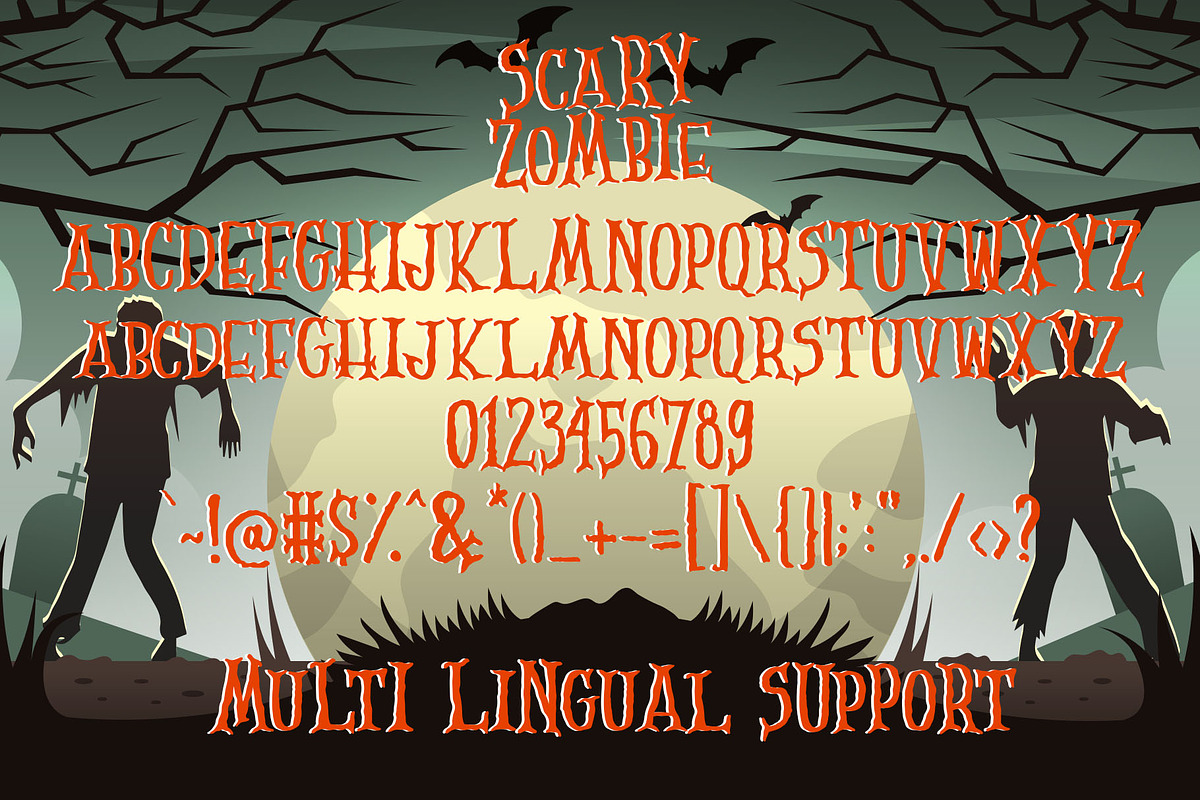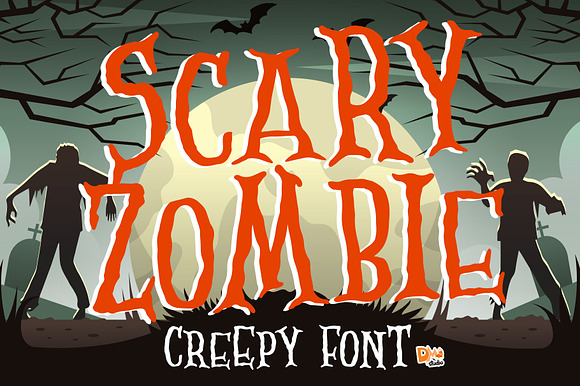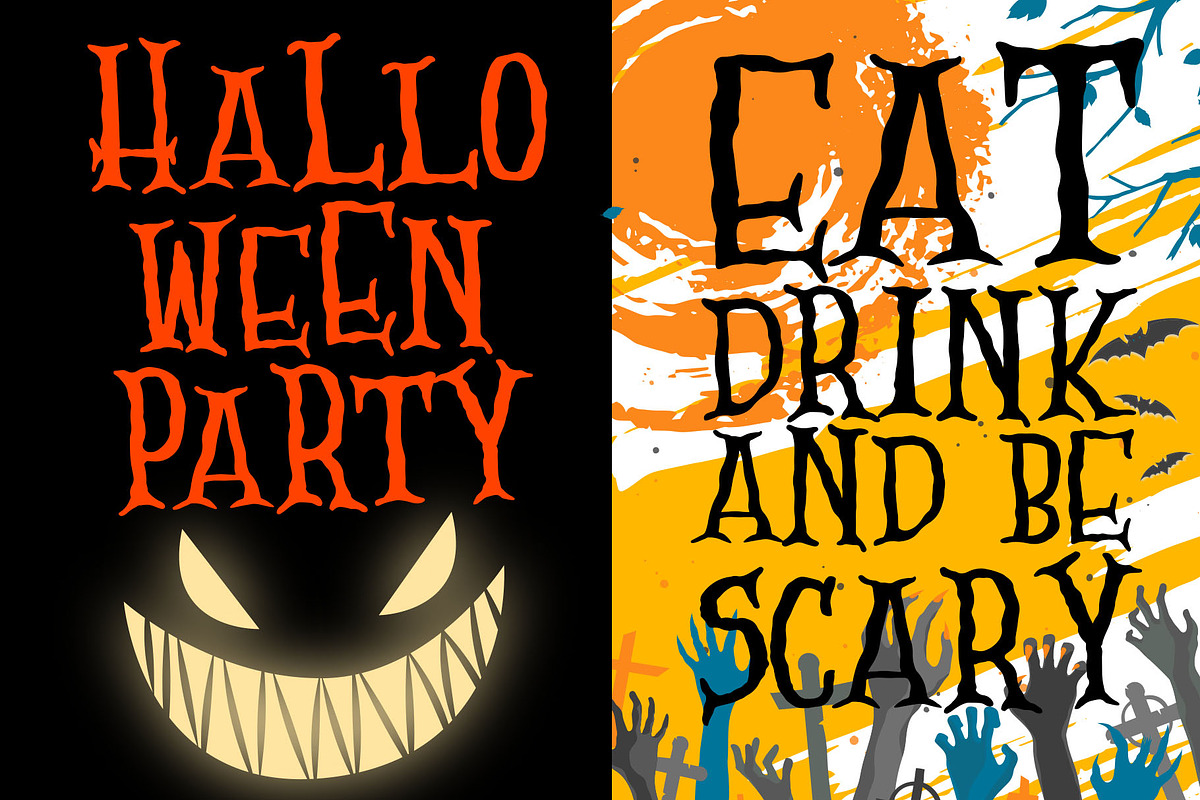
Scary Zombie - Spooky Font
Watch out for "Scary Zombie" !! This scary typeface special made for your scary moments.. Great for crafting at Halloween, Birthday, and much more!
All in caps in 2 heights (Uppercase & lowercase)
- All in caps in 2 heights (Uppercase & lowercase)
- Numeric
- Multilingual
- Scary Zombie Regular